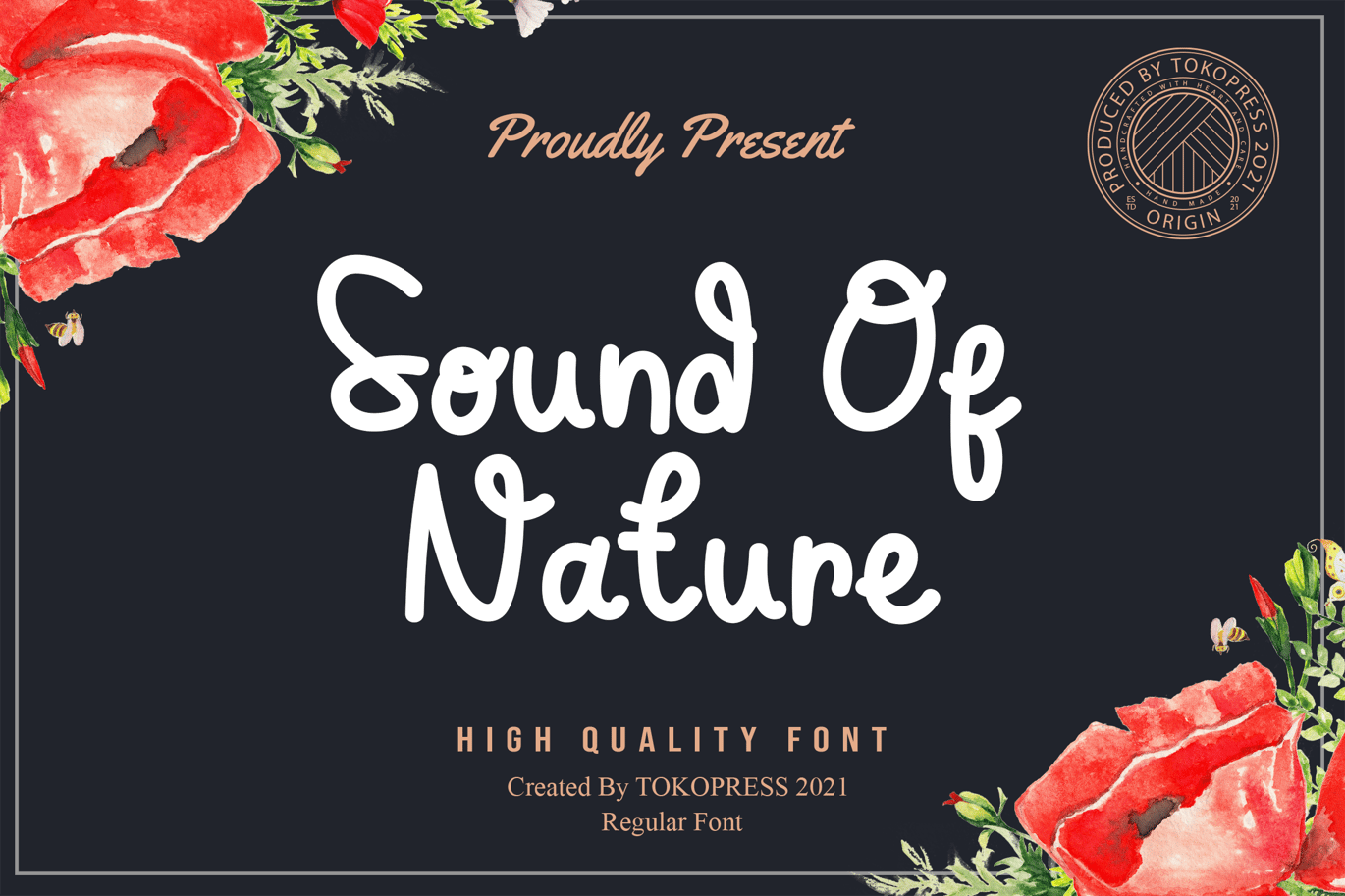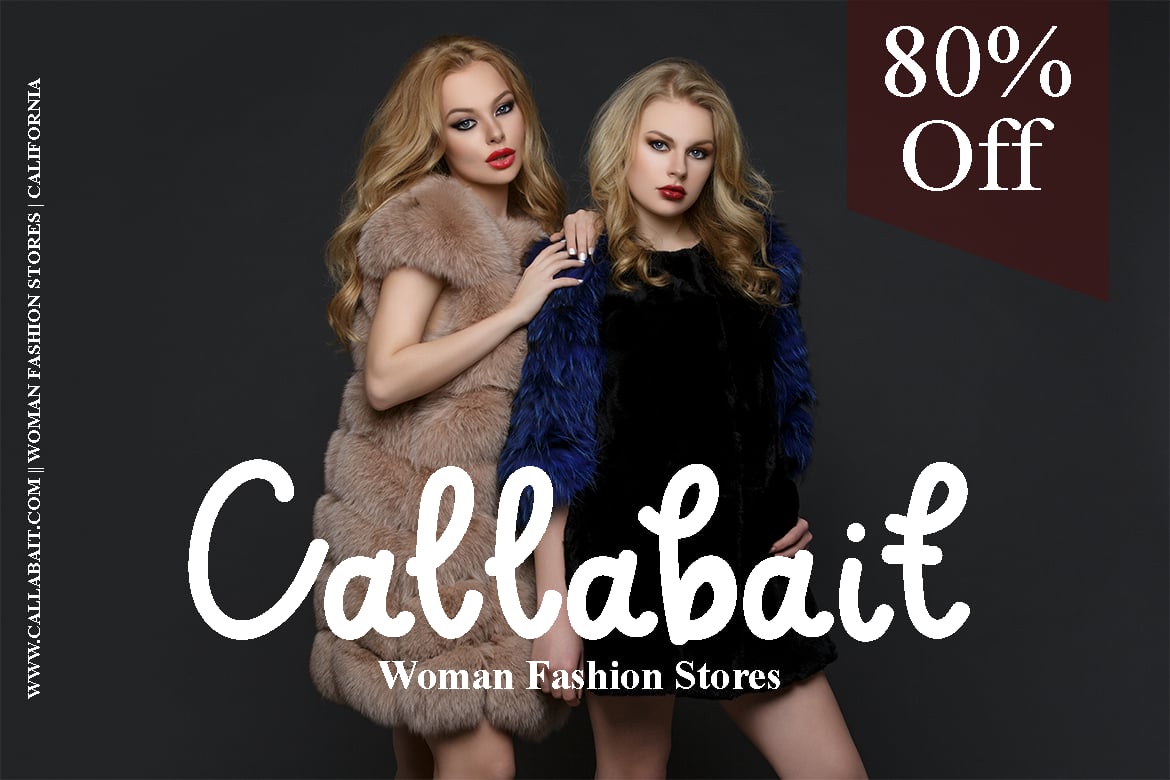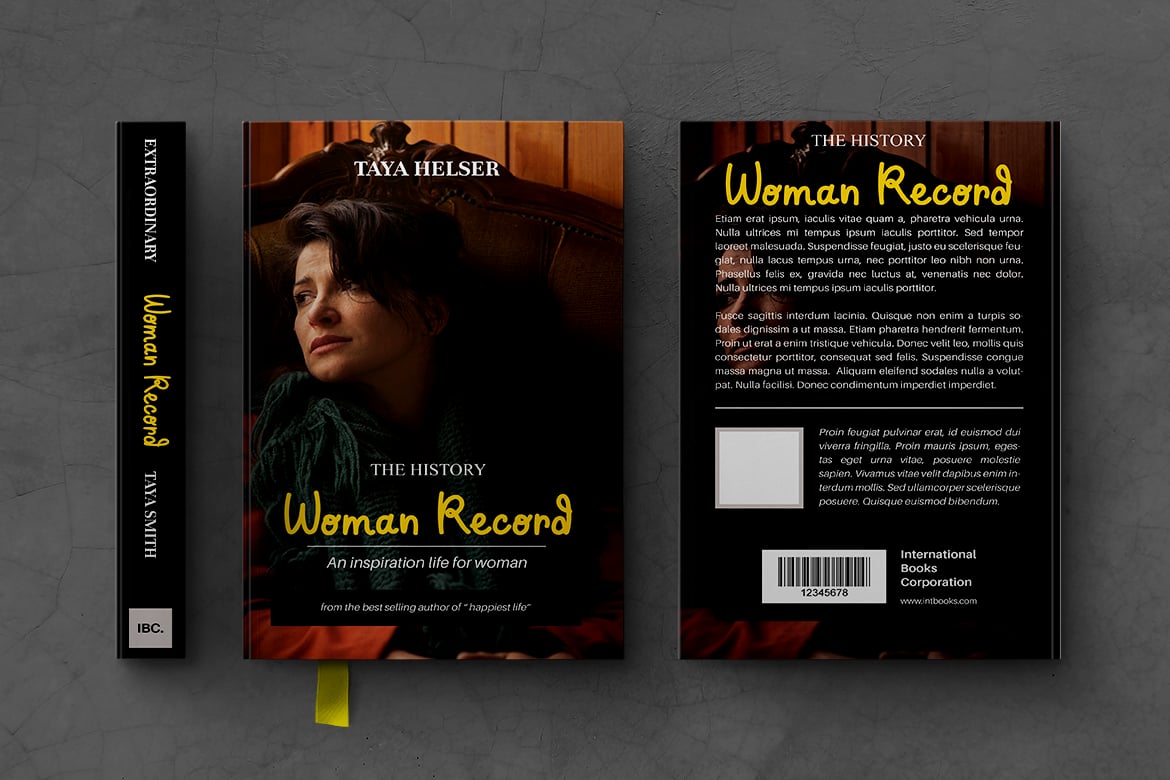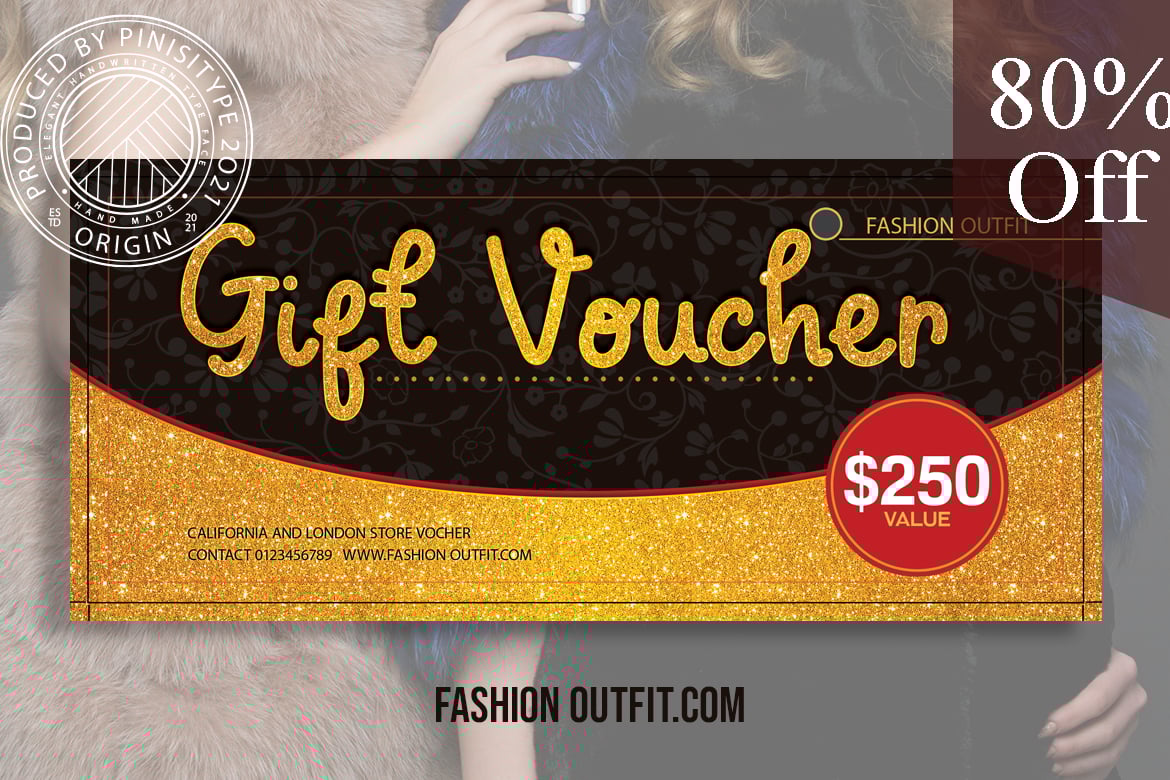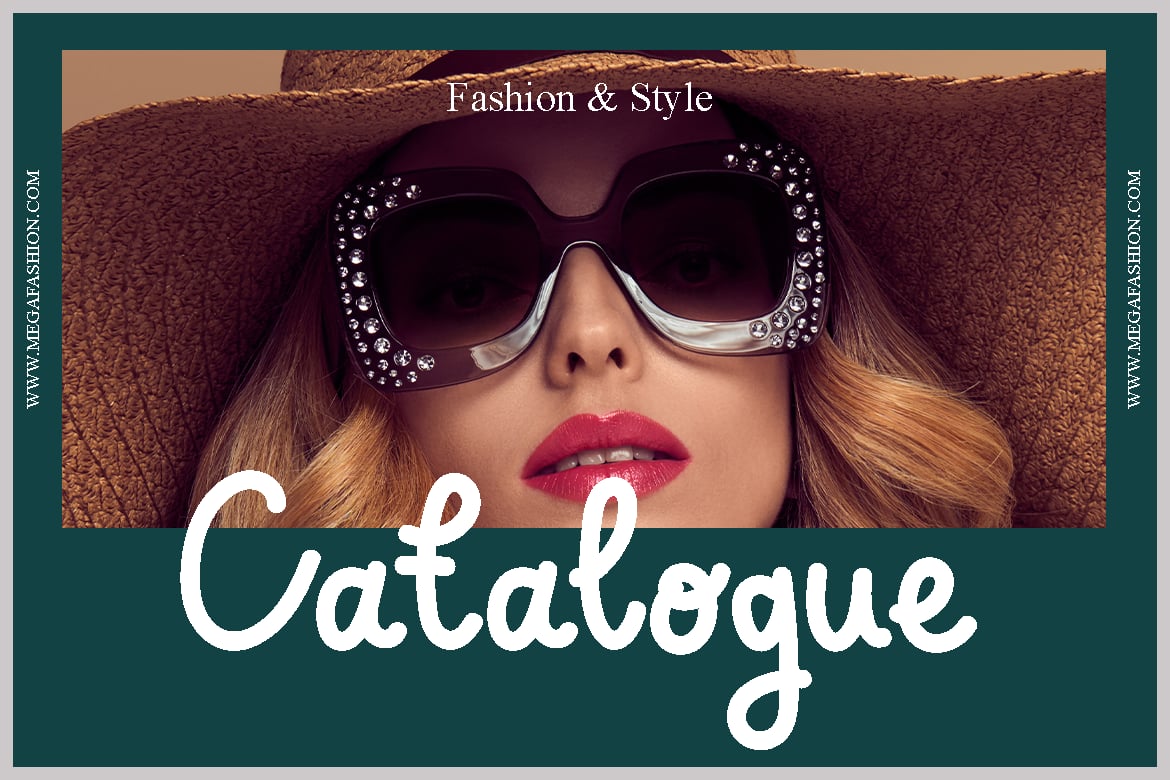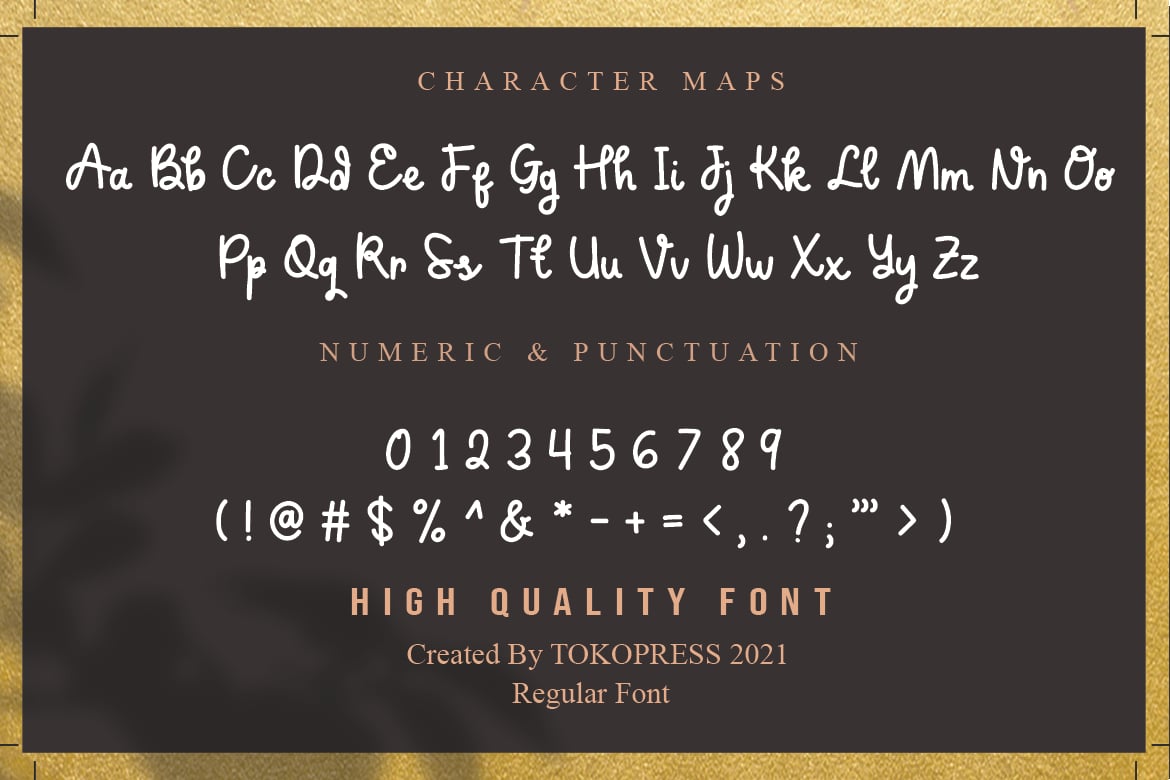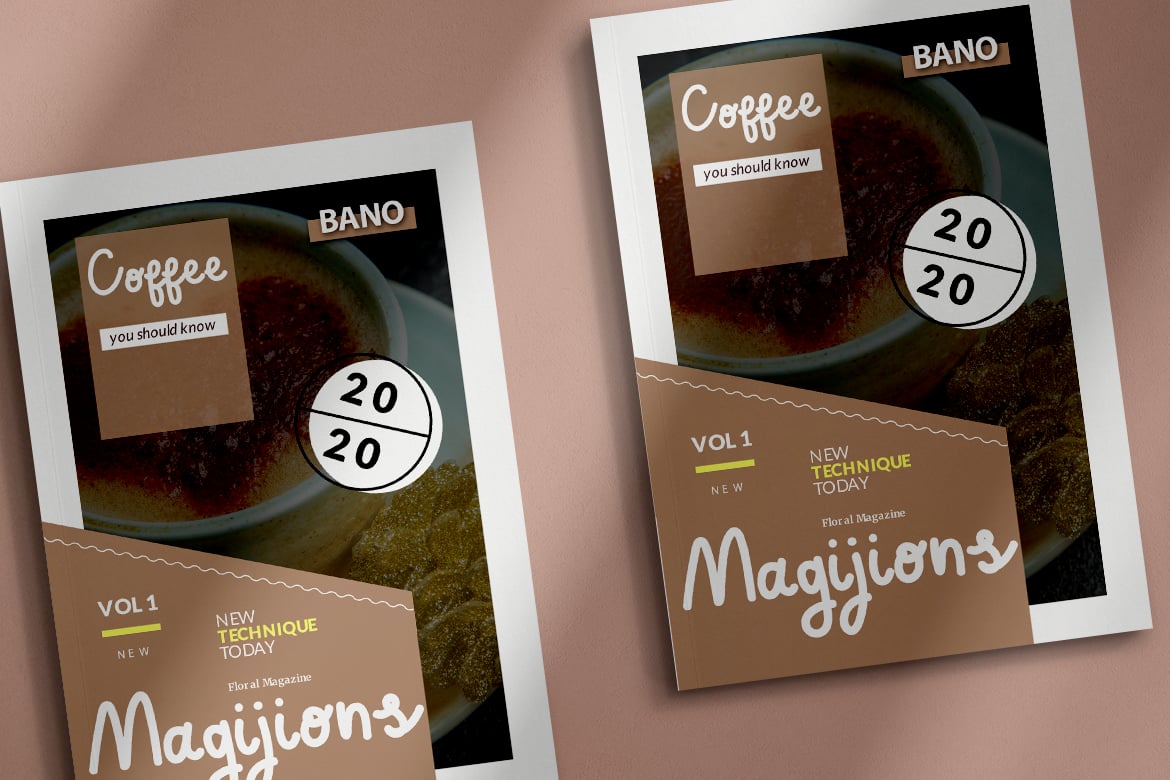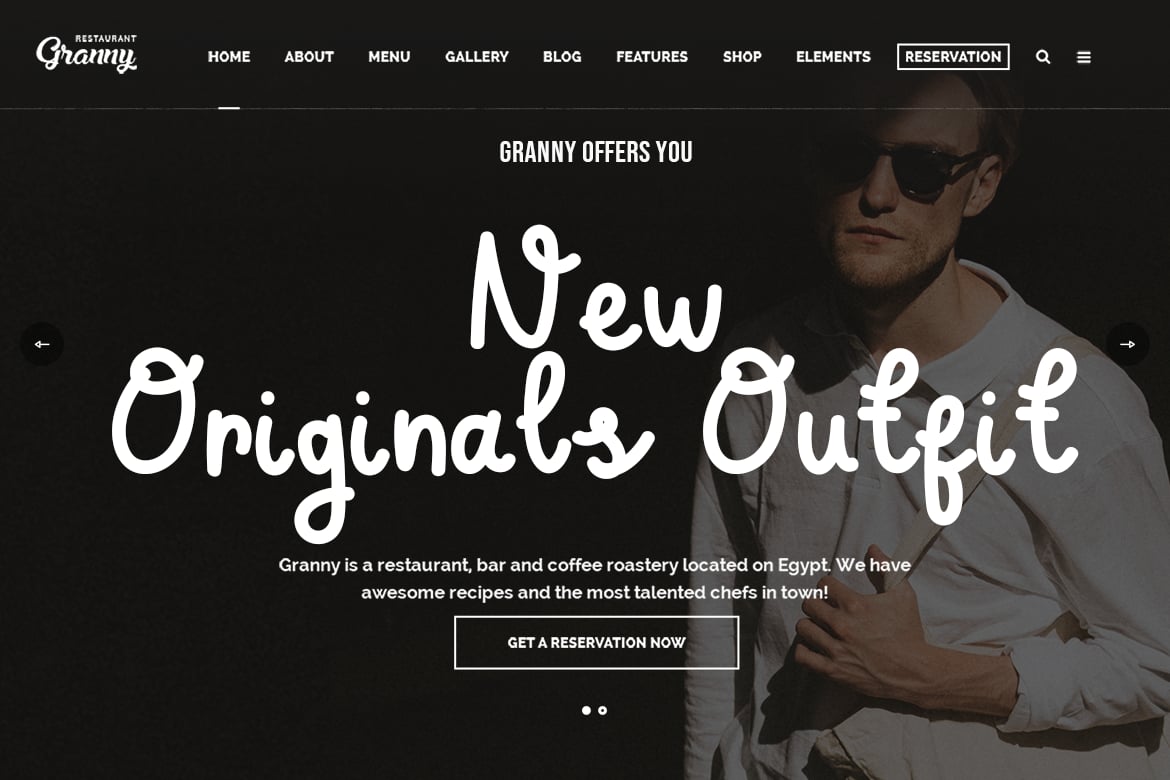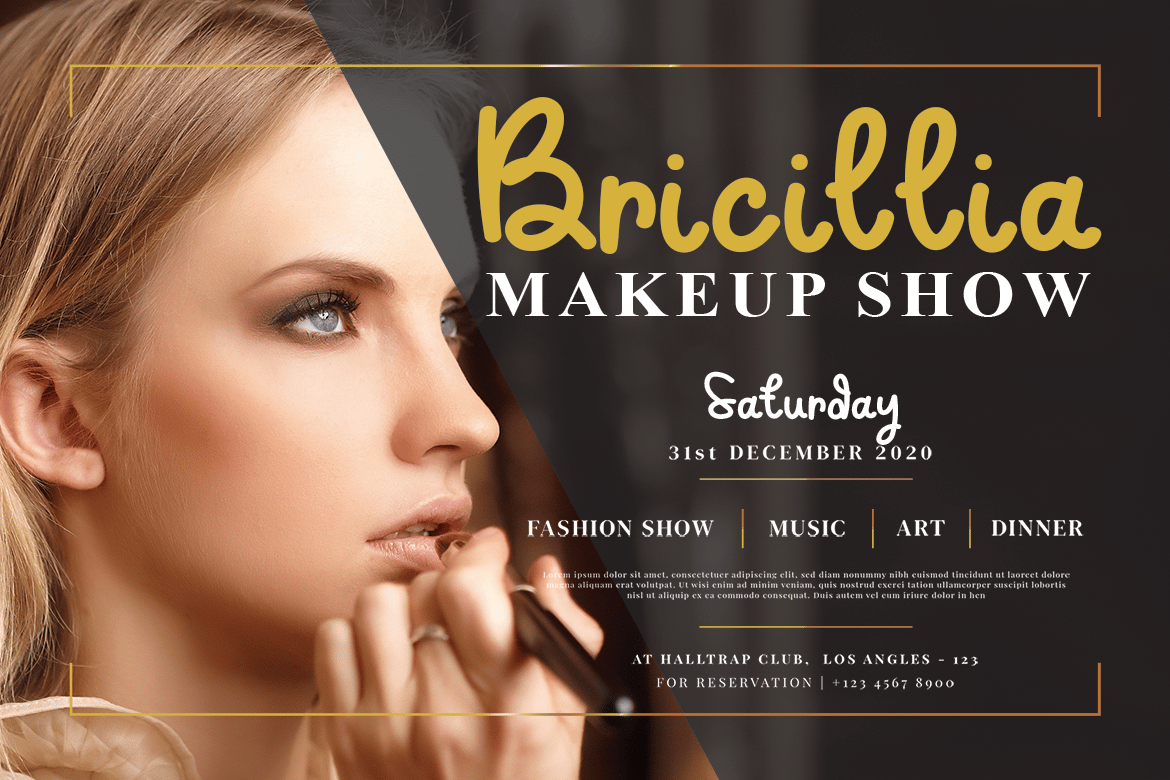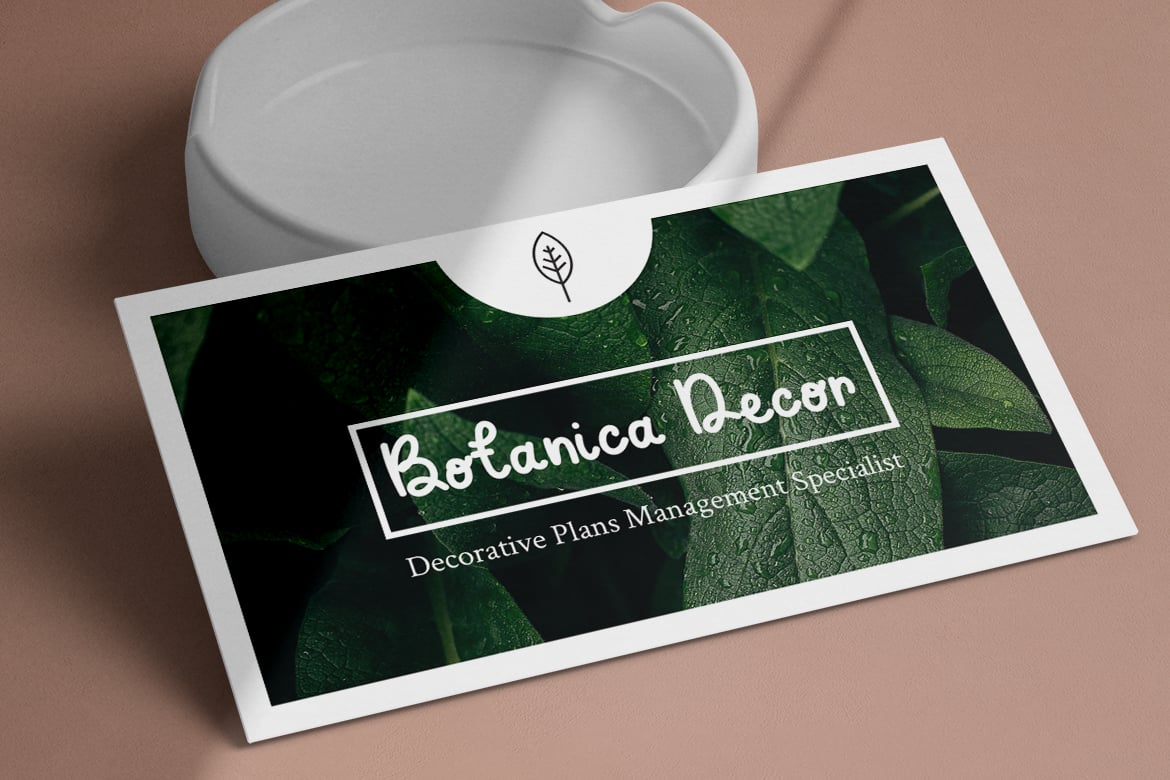
Sound of Nature – Cute Fancy font
The cute curl on the letters, it’s like a wavy hair of a beautiful lady. Hence, Sound of Nature bring the natural beauty and cuteness on the design you created.
Suit perfectly for Girl/ Woman segmented magazine, poster, movie title, travel and leisure poster, youtube covers, youtube thumbnails, social media page covers and so on…